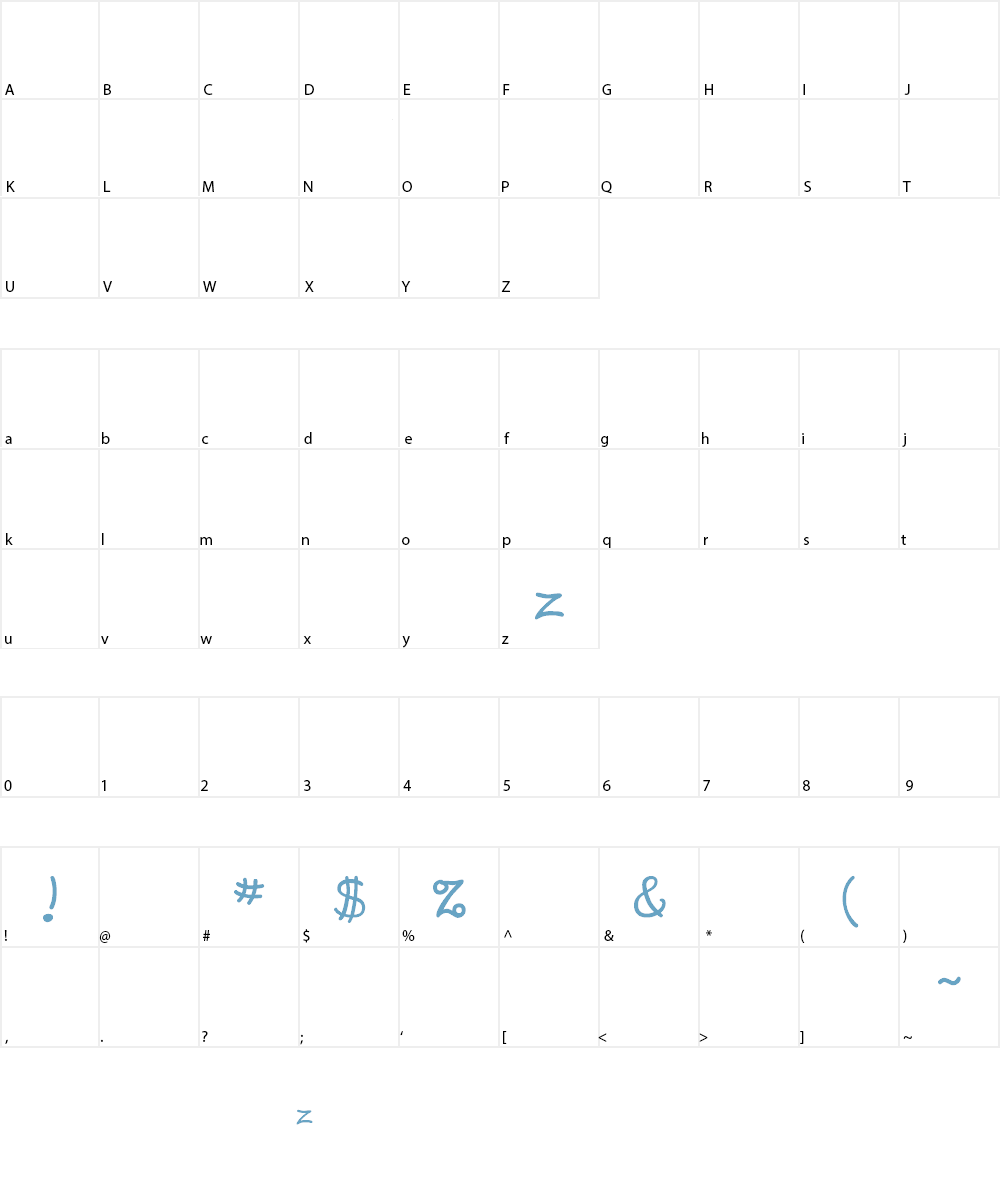
Based on the author's hand printing. Contains the euro currency symbol and many extended latin-based characters. This version (3) corrects a problem with the font and certain Microsoft programs.